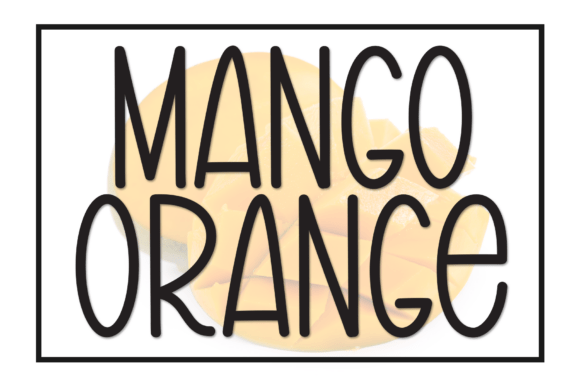
Mango Orange: A Handwritten Display Font for Modern Connection
In an era dominated by sleek sans-serifs and rigid geometric typefaces, there is a growing hunger for something that feels undeniably human. Mango Orange answers this call with a distinct charm, offering a handwritten display font that bridges the gap between digital efficiency and personal touch. It is not merely a collection of characters; it is a design tool that infuses warmth into visual communication. By immersing yourself in the charming allure of this delightful blend of sweet warmth and friendly aura, designers and creators can instantly elevate their projects from standard to memorable.
The relevance of Mango Orange extends far beyond simple aesthetics. It represents a shift in how we value authenticity in our daily interactions, whether through a wedding invitation or a small business logo. As audiences become increasingly saturated with polished, automated content, the imperfect, whimsical strokes of a handwritten style stand out as a beacon of sincerity. This font captures the essence of a pen gliding across paper, translating that tactile experience into the digital realm with remarkable fidelity.
The Psychology of Warmth in Digital Typography
Why are people turning toward fonts like Mango Orange? The answer lies in the psychology of perception. In modern workflows, where screens mediate almost every interaction, users often crave a sense of connection that feels organic rather than manufactured. A font that mimics handwriting triggers a subconscious response associated with personal letters, notes, and direct communication. It suggests that a real person took the time to craft the message, fostering trust and engagement.
Mango Orange excels in this regard because it balances playfulness with elegance. It avoids the pitfalls of being too messy or illegible, which can undermine professionalism. Instead, its curves are deliberate, and its spacing is considered, ensuring that the text remains readable while retaining its spirited character. This balance is crucial for professionals who need to maintain credibility while injecting personality into their brand voice. Whether you are a marketer trying to soften a corporate message or a blogger looking to create a cozy reading experience, this font provides the perfect tonal adjustment.
Adapting to Changing User Expectations
User expectations have evolved significantly over the last decade. Today's consumers are savvy; they can spot generic templates from a mile away. They expect brands and creators to show individuality. The rise of the "creator economy" has further accelerated this trend, as individuals build businesses around their unique personalities. In this landscape, Mango Orange becomes a strategic asset. It allows entrepreneurs and freelancers to differentiate themselves without needing complex graphic design skills.
Consider the modern greeting card market. While physical cards remain popular, digital greetings are becoming more common for quick, heartfelt messages. A standard system font can feel cold and impersonal in these contexts. However, applying Mango Orange to a digital card transforms it into a virtual hug. Its whimsical style breathes life into the concept, making the recipient feel valued. This attention to detail aligns with current lifestyle shifts where emotional intelligence in design is just as important as functional utility.
Practical Applications for Creators and Businesses
The versatility of Mango Orange makes it an enchanting companion for a wide array of projects. Its flawless execution when penning down elegant wedding invites is perhaps its most celebrated use case. Weddings are deeply personal events, and the stationery sets the tone for the entire celebration. Couples today often seek themes that reflect their unique stories rather than adhering to traditional, stiff formalities. Mango Orange offers the perfect solution, providing a script that feels romantic and intimate yet legible enough for essential details like dates and locations.
Beyond weddings, the font finds a natural home in the world of small business branding. For boutique shops, artisan bakeries, yoga studios, and creative agencies, the name of the business needs to convey a specific vibe. A bakery named "Sweet Crumb" looks infinitely more inviting when written in Mango Orange compared to a bold, blocky font. The font's friendly aura aligns perfectly with businesses that prioritize community and customer care. It signals that the business is approachable and human-centric.
- Wedding Invitations: Ideal for save-the-dates, main invitations, and menu cards where romance and personalization are key.
- Greeting Cards: Perfect for birthdays, anniversaries, and thank-you notes, adding a layer of heartfelt sincerity.
- Brand Logos: Excellent for lifestyle brands, wellness companies, and creative portfolios seeking a distinctive identity.
- Social Media Graphics: Enhances quotes, announcements, and promotional posts, stopping the scroll with its playful nature.
- Packaging Design: Adds a premium, handcrafted feel to product labels for cosmetics, food, and gifts.
Integrating Whimsy into Professional Workflows
One might assume that a whimsical font like Mango Orange is difficult to integrate into professional design software or strict brand guidelines. However, modern design tools have made it easier than ever to incorporate such elements seamlessly. The font's structure is robust, allowing it to scale well from large headlines to smaller body text accents. Designers can pair it with clean, neutral sans-serifs to create a sophisticated contrast that guides the reader's eye effectively.
For example, a marketing campaign for a children's educational app could use Mango Orange for the primary slogan to evoke fun and learning, while using a standard font for the technical specifications. This combination ensures clarity without sacrificing the playful spirit of the product. The key is moderation; the font works best when used to highlight specific elements rather than overwhelming the entire layout. When used correctly, it adds a sprinkle of fun that enhances the overall user experience.
The Evolution of Handwritten Styles in Tech
The trajectory of typography in the digital age has seen a fascinating pendulum swing. We moved from the ornate serifs of the early web to the minimalist flat design of the smartphone revolution. Now, we are seeing a return to texture and imperfection, driven by the desire for authenticity. Mango Orange is a product of this evolution. It reflects a technological maturity where digital tools can replicate the nuances of analog media with high precision.
This evolution is not just about nostalgia; it is about meeting the needs of a fragmented audience. People consume content on various devices, from large desktop monitors to compact smartwatches. A font that feels too sterile can get lost in the noise. Conversely, a font with character creates a visual anchor. Mango Orange's design accounts for this, ensuring that its strokes remain distinct even at smaller sizes or on lower-resolution screens. This adaptability makes it a forward-looking choice for designers planning for long-term brand consistency.
Furthermore, the rise of remote work and digital collaboration has changed how teams communicate. Internal newsletters, project updates, and team celebrations often happen online. Using a font like Mango Orange in these internal communications can boost morale and foster a sense of camaraderie. It breaks down the barriers of formal corporate speak, reminding employees that there are real people behind the screens. This subtle shift in tone can have a significant impact on company culture and employee engagement.
Recommendations for Effective Usage
To maximize the impact of Mango Orange, creators should focus on context and pairing. While the font is standalone strong, it shines brightest when paired thoughtfully. Avoid using it for long paragraphs of dense text, as the irregular letterforms can strain readability over extended periods. Instead, reserve it for headlines, pull quotes, and short, impactful phrases.
Color also plays a vital role. The warm, friendly aura of the font pairs exceptionally well with soft pastels, earth tones, and vibrant oranges or yellows that echo its name. However, it can also make a striking statement against deep navy or charcoal backgrounds, creating a high-contrast look that feels both modern and classic. Experimentation is encouraged, but always test the final design across different mediums to ensure the intended emotion is conveyed accurately.
Ultimately, Mango Orange is more than a font; it is a design philosophy that champions warmth, creativity, and human connection. In a world that is increasingly digital and fast-paced, taking the time to choose a typeface that speaks to the heart is a powerful decision. Whether you are crafting an elegant wedding invite or infusing warmth into a heartfelt greeting card, this font offers the tools to tell your story with style and sincerity. By embracing its whimsical style, you breathe life into your design concepts, ensuring that your message resonates deeply with your audience.